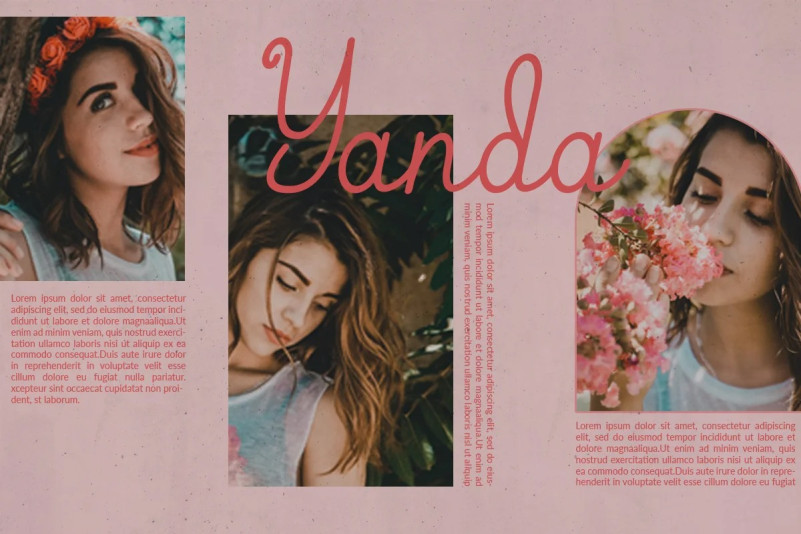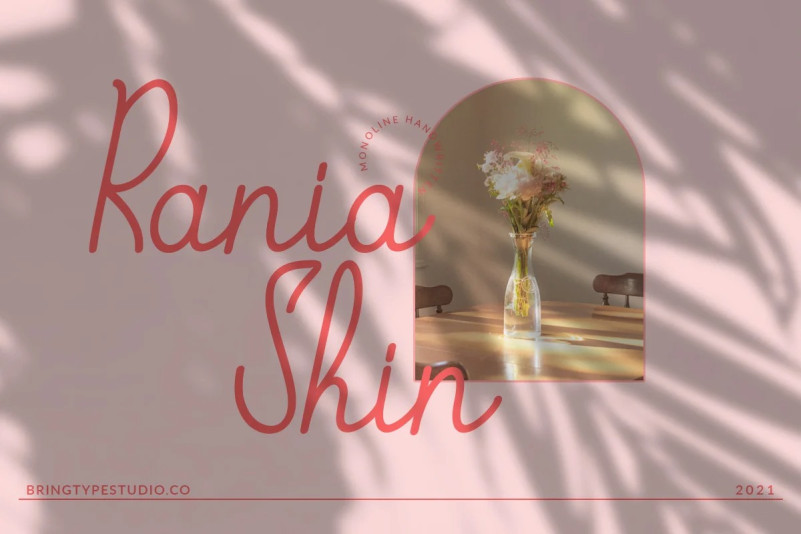
Rania Shin Font
Rania Shin Script Font is a font made with hand scratches that are very cute, this font is perfect for everything, such as wedding invitations, posters, promos, videos, images etc